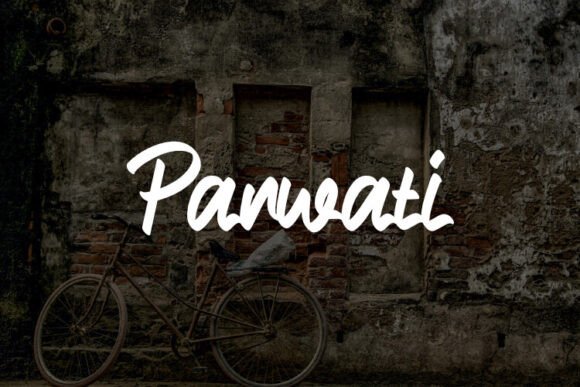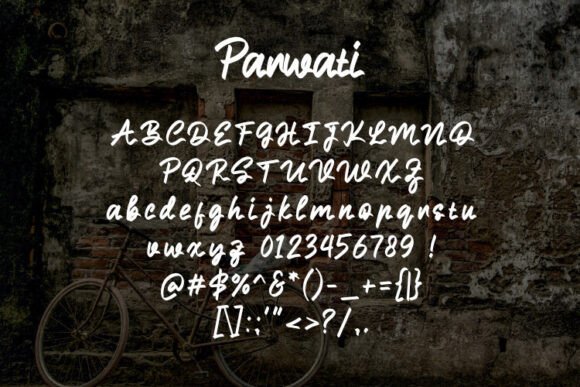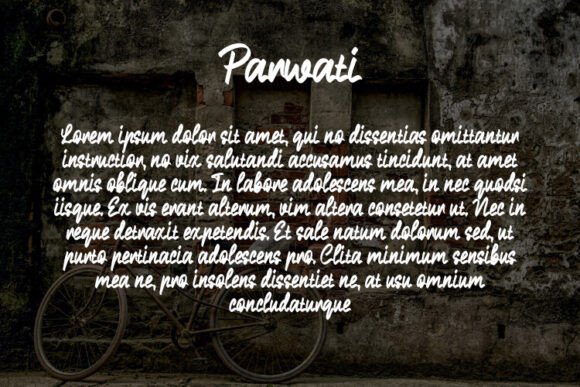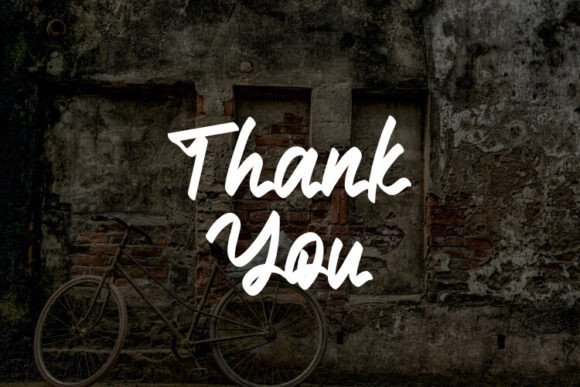
Parwati Font: A Rustic Handwritten Font for DIY & Cricut Projects
About the Parwati Font
The wait is over! The incredible Parwati Font is now available for your design toolkit. Revel in the allure of “Parwati”, a versatile font that effortlessly harmonizes with any design vision. A fabulous choice for clothing or T-shirt design, this standout font aligns seamlessly with any software. The “Parwati” font package comes with an otf file, further accentuating its adaptability. Unleash your creativity and embark on a journey of unique expression with the limitless potential of “Parwati”.
Parwati’s bold, slightly playful character makes it ideal for headlines, logos, and short-form text in branding materials, posters, and packaging design. It works exceptionally well for projects that require a touch of modern flair and strong visual impact. However, its decorative nature makes it less suitable for body text or UI elements where high readability is paramount. Extended use in paragraphs would likely strain readability.
Consider pairing Parwati with a clean sans-serif like Open Sans for a contemporary feel, or a classic serif such as Garamond for a more sophisticated contrast. For a playful, yet balanced look, a rounded sans-serif like Montserrat could be used.
The font’s personality leans towards energetic and modern, making it a fitting choice for brands targeting younger demographics or those emphasizing creativity and innovation.